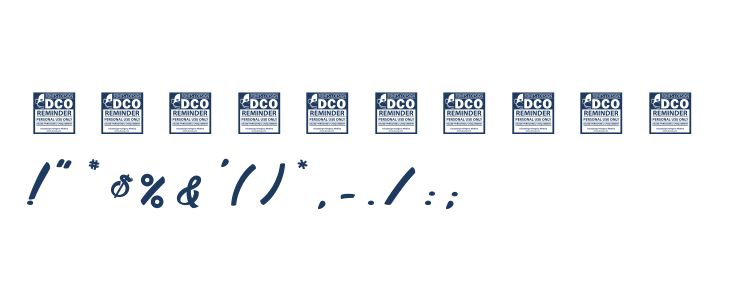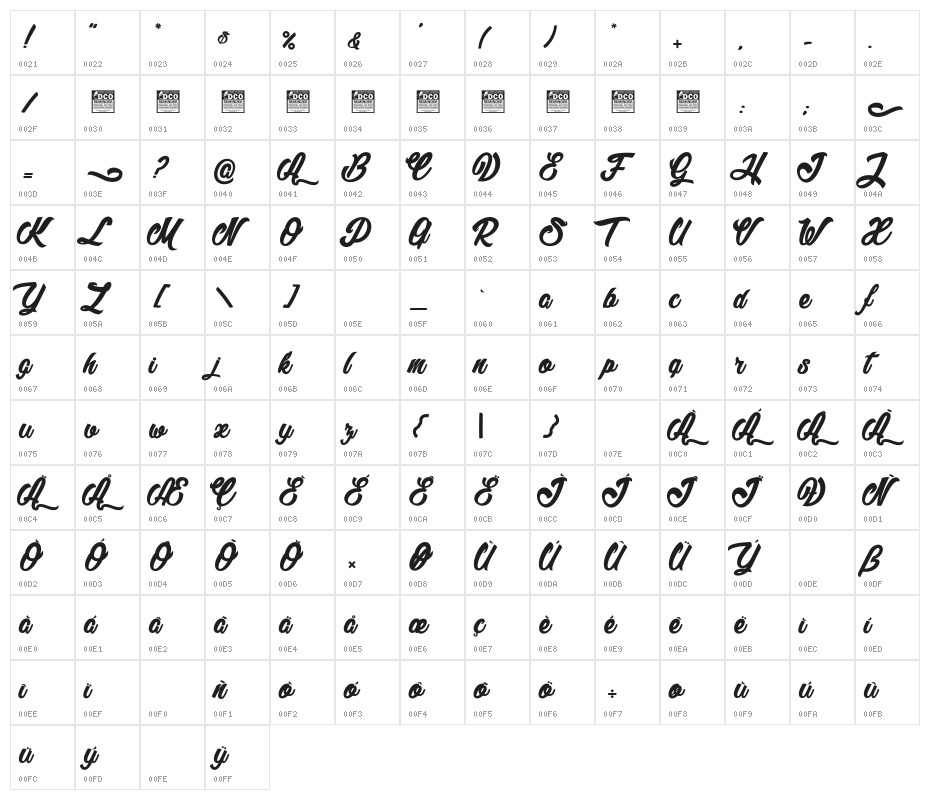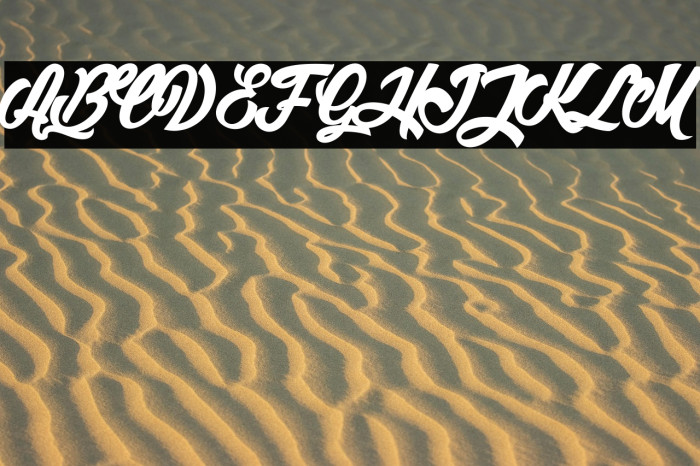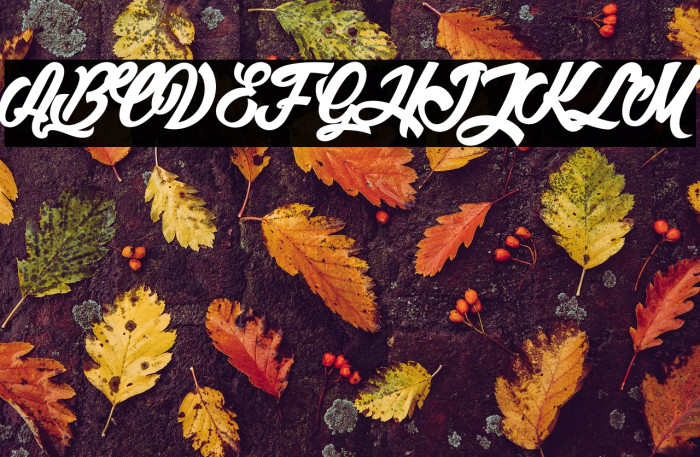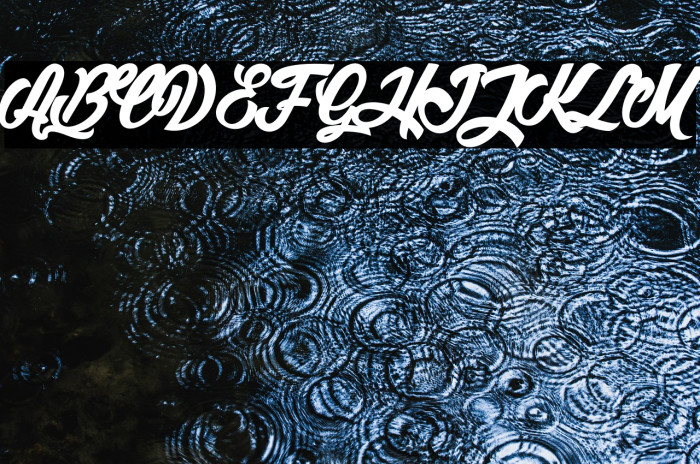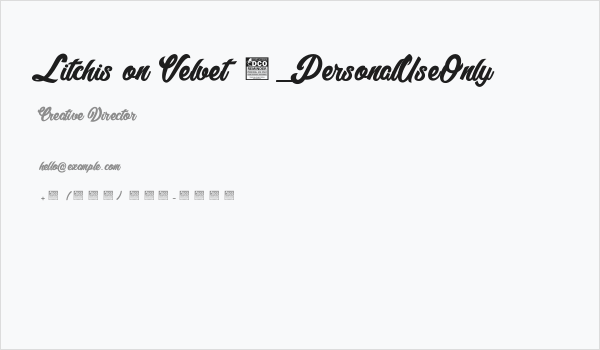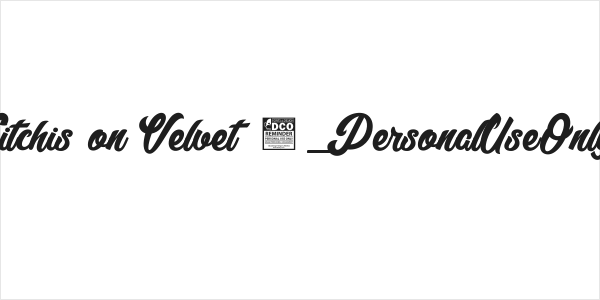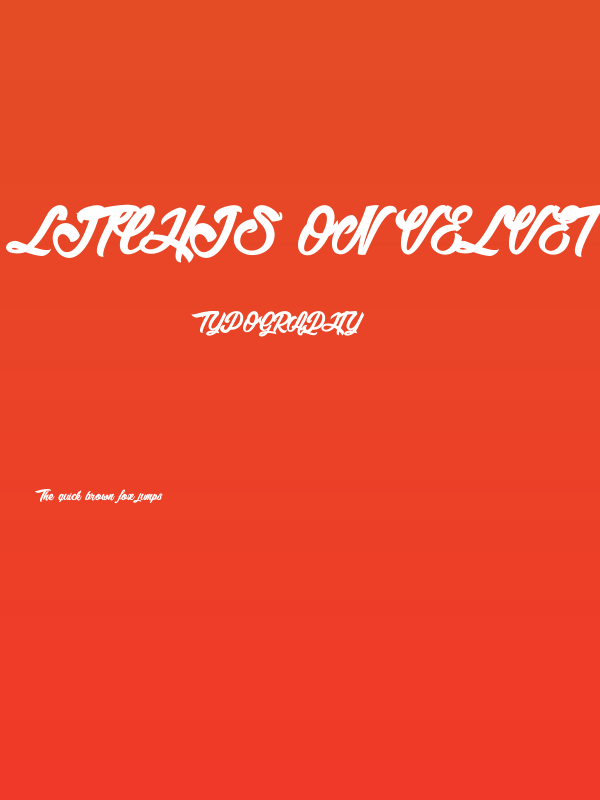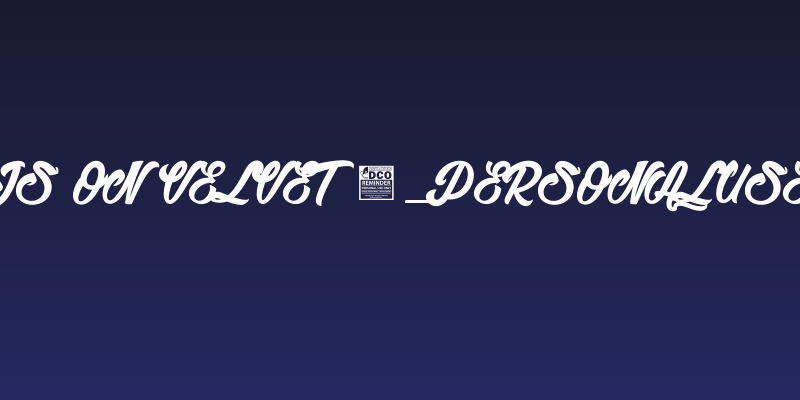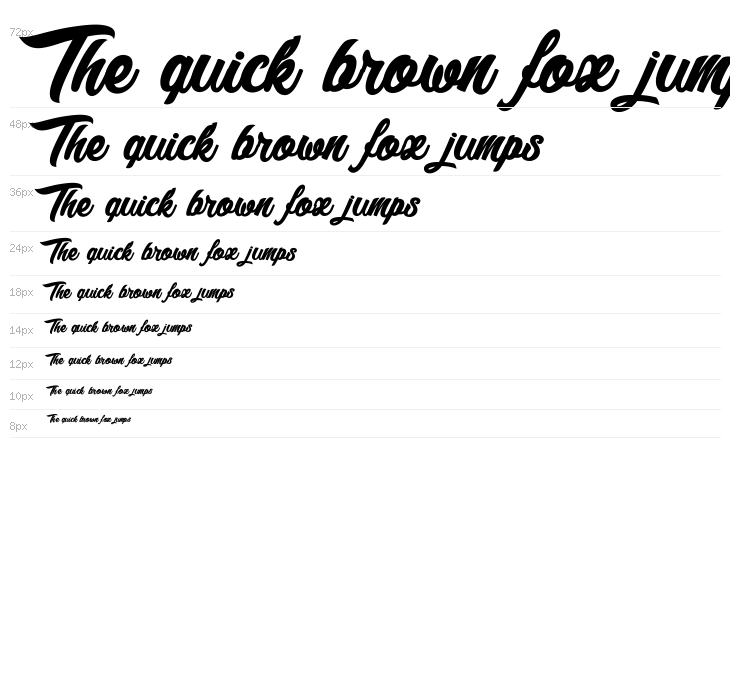
Litchis on Velvet 2_PersonalUseOnly Font
Litchis on Velvet 2_PersonalUseOnly Description
This font showcases a bold, cursive style with a strong emphasis on fluidity and elegance. The letters are interconnected, creating a seamless flow that is both dynamic and visually appealing. The uppercase letters are particularly ornate, featuring exaggerated loops and swirls that add a touch of sophistication. The lowercase letters maintain a consistent style, with smooth curves and a slightly slanted orientation. The numbers and special characters are designed to match the overall aesthetic, ensuring a cohesive look across all text elements. This font is ideal for projects that require a touch of elegance and flair, such as invitations, branding, or decorative headings.